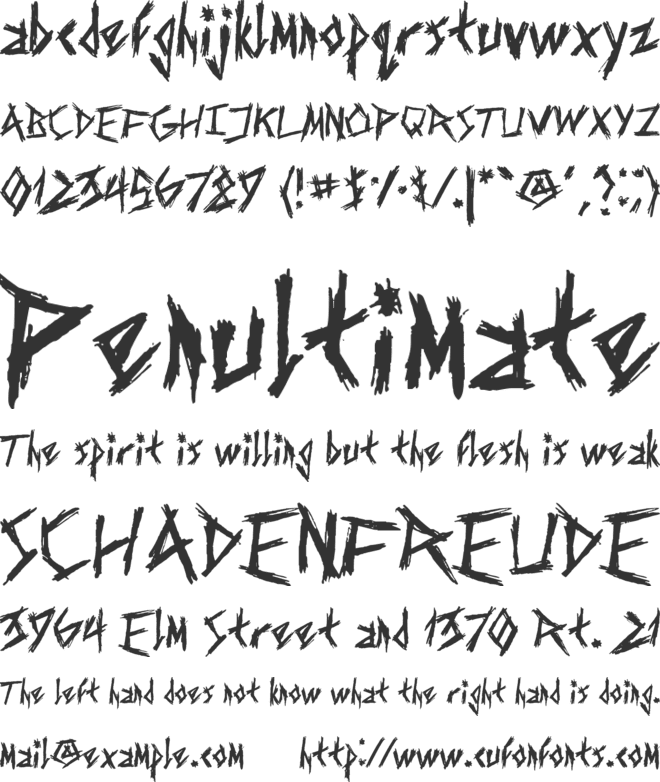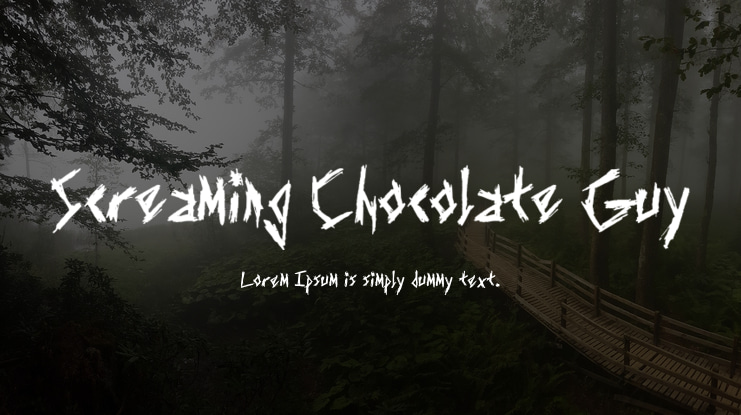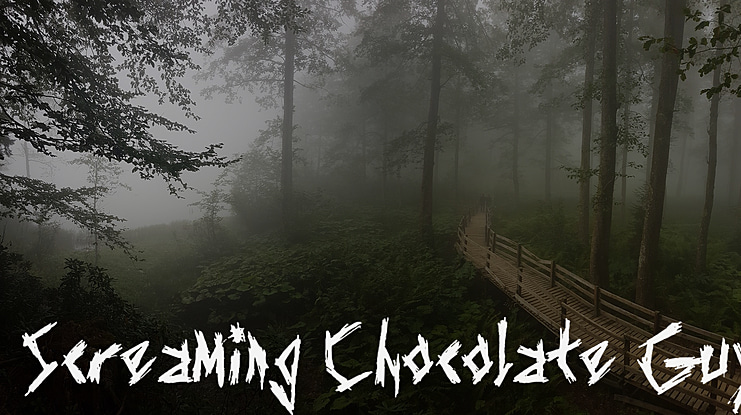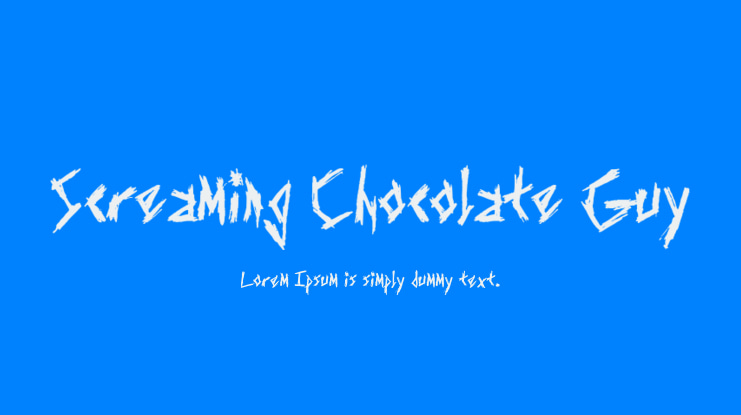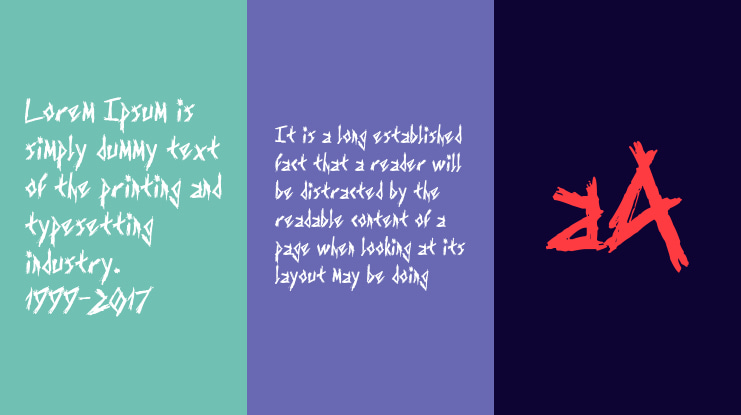
Screaming Chocolate Guy Font
Loosely based on the character in the most famous scene of Spongebob episode 52, season 3.
Screaming Chocolate Guy font preview